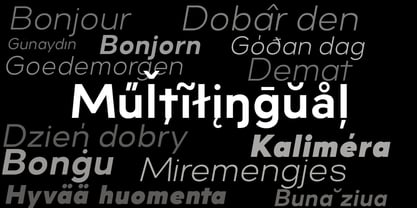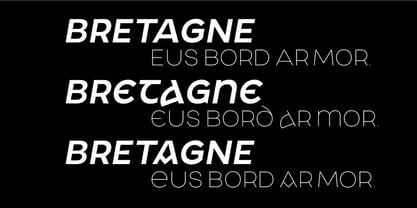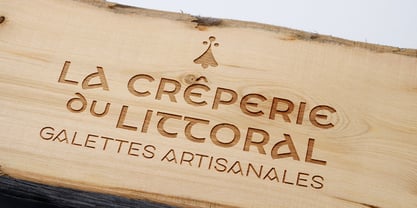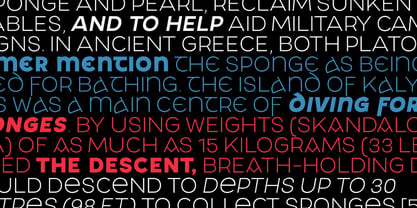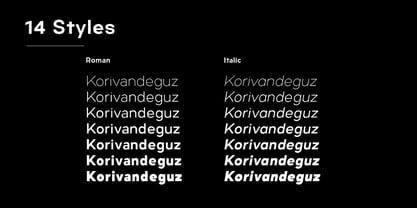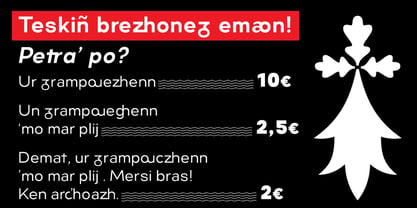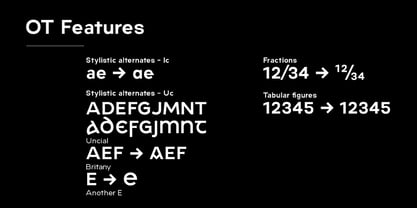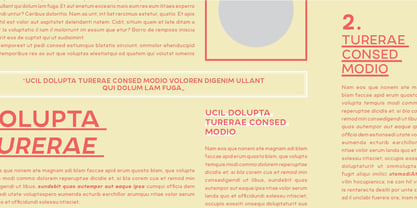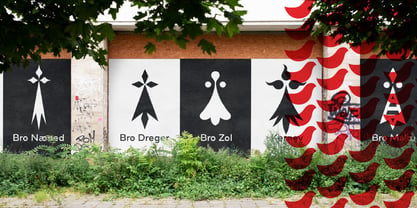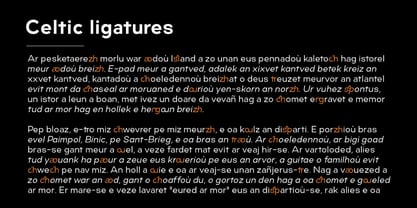
Arvor
La familia tipográfica Arvor fue diseñada por Julien Janiszewski y publicada por Octotypo. Arvor contiene 14 estilos y opciones de paquete familiar. Más información sobre esta familia
Arvor is a contemporary sans-serif type family that seamlessly bridges historical manuscript tradition and modern, high-performance graphic design. Inspired by the soft curves of classic uncial scripts and the rich visual history of the Celtic languages, Arvor reimagines heritage letterforms into a sharp, geometric, and ultra-versatile sans-serif.
Arvor combines clean geometric architecture with subtle calligraphic roots. By default, it operates as a sleek, highly legible, modern sans suitable for corporate branding, editorial layouts, UI, and packaging. However, beneath its clean lines lies an opportunity of transforming your text into an expressive, identity-rich display typeface.
• Key Features: 14 Styles (7 Weights + Matching Italics): From a delicate Thin to an impactful Black, Arvor offers complete typographic flexibility across all media.
• Extensive Celtic Support & Unique Ligatures: Designed with native linguistic precision, Arvor features an unprecedented set of ligatures specifically tailored for Celtic and Breton typography (including bzh, ch, c'h, chw, ff, gw, gwr, kñ, ll, nh, zh, st, sp, str, and many more).
• Uncial & Stylistic Alternates: Instantly switch from modern clarity to authentic historical flair.
• Stylistic Alternates (Capital & Lowercase): Swap standard glyphs for distinct uncial-inspired shapes (A, D, E, F, G, J, M, N, T and a, e).
• Britany & Uncial Sets: Access custom alternate letters variants to give headlines a strong regional or editorial character.
• Comprehensive European Language Support: Full support for Latin-based languages across Western, Central, and Eastern Europe, with complete diacritics and accented characters.
• Pro Typographic Extras: Tabular figures, fractions, case-sensitive forms, and localized forms for seamless editorial and commercial design.
• Perfect For: Branding & Visual Identity: Stand out with headlines that convey culture, history, and modernity all at once.
• Editorial & Publishing: Excellent legibility in body text combined with expressive ligatures for titles and cover design.
• Packaging & Signage: Ideal for food & beverage, spirits, tourism, culture, and outdoor brands looking for a authentic yet contemporary look.
Give your designs a distinct voice where centuries of tradition meet forward-thinking typography.